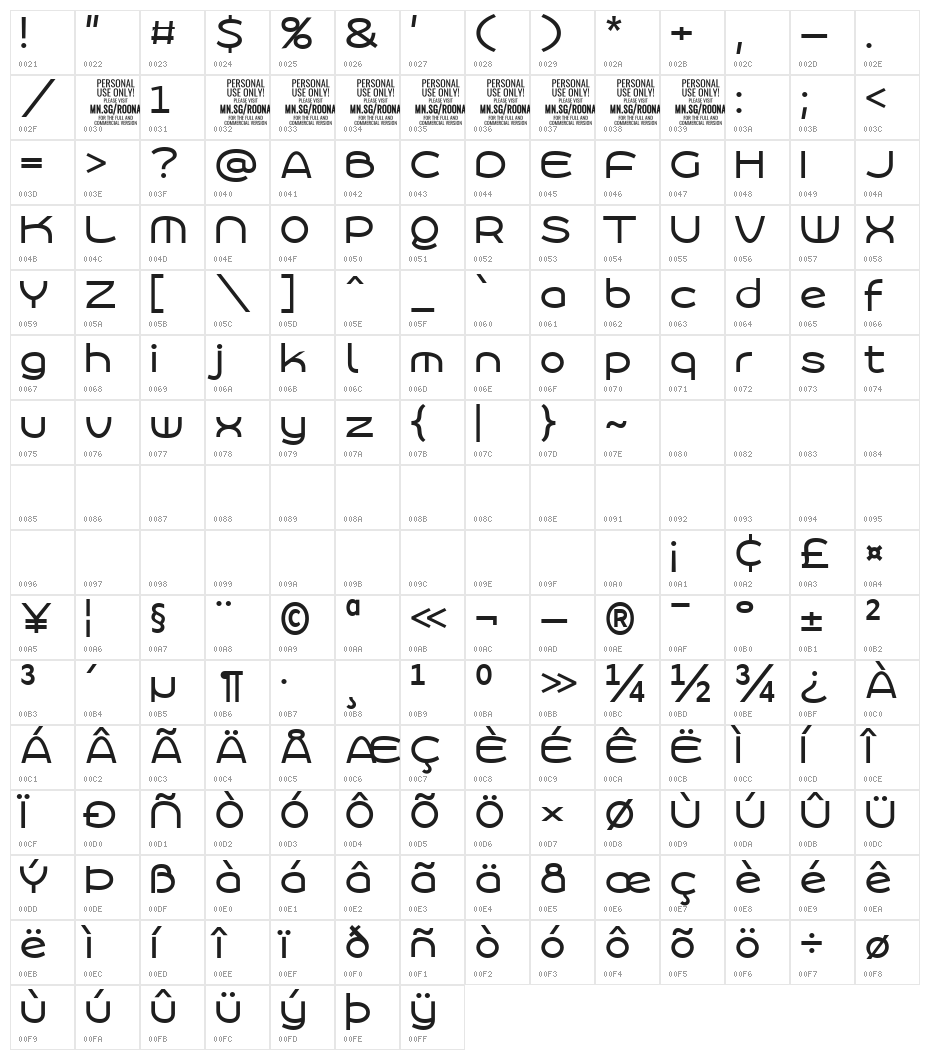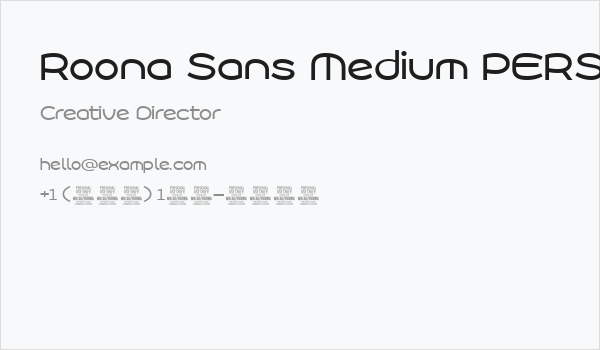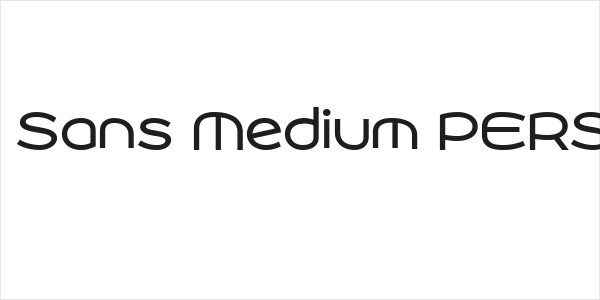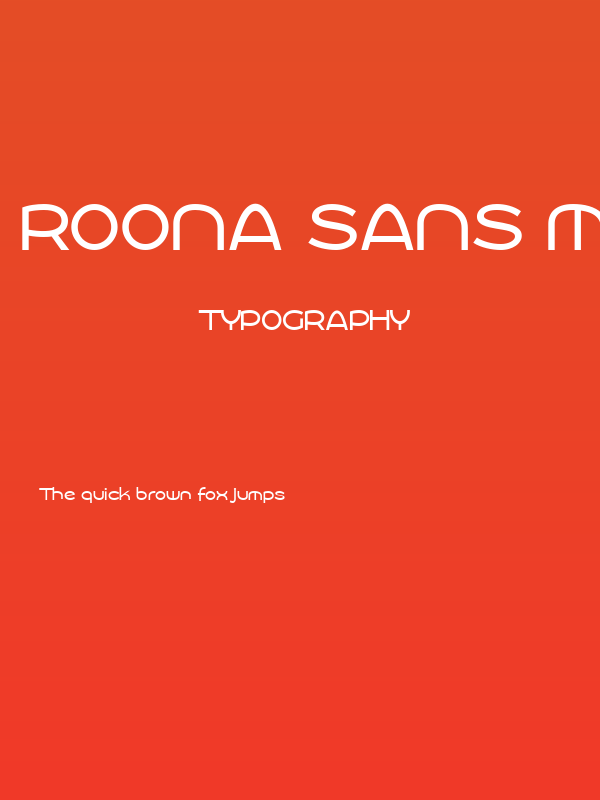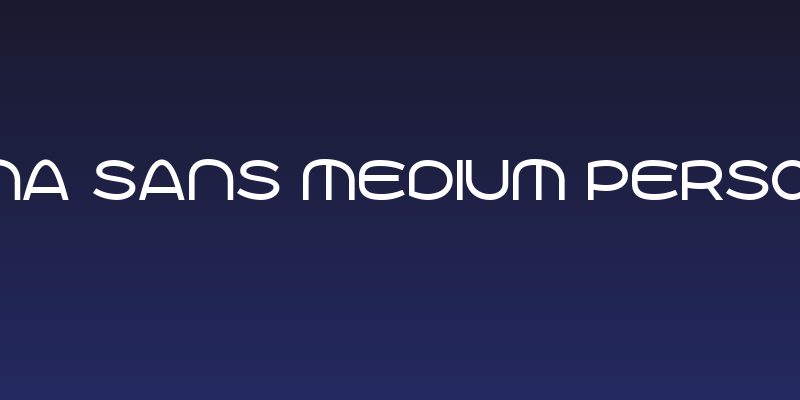
Roona Sans Medium PERSONAL Font
Roona Sans Medium PERSONAL Description
This font features a modern and sleek design with a geometric sans-serif style. The characters are clean and minimalistic, with a consistent stroke width that gives it a uniform appearance. The uppercase and lowercase letters maintain a harmonious balance, with rounded edges that soften the overall look. The numbers and special characters are designed to match the aesthetic, ensuring a cohesive visual experience. This font is versatile and can be used in various design contexts, offering a contemporary feel that is both professional and approachable.
| Proposed Projects | Ideal for branding, digital interfaces, advertising, and editorial design. |